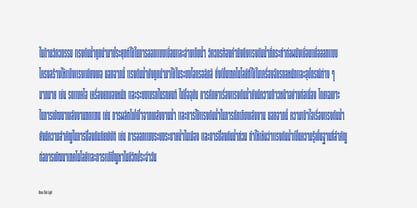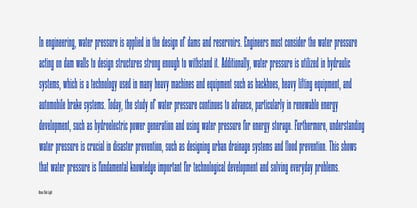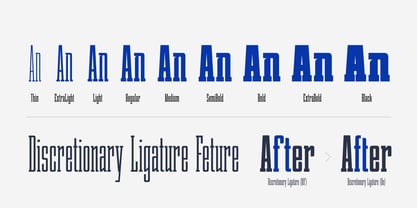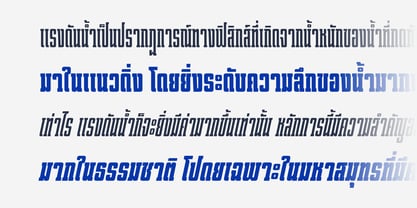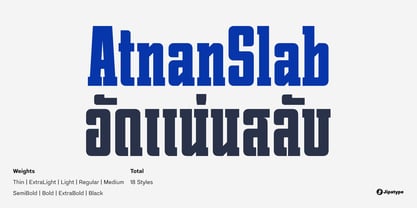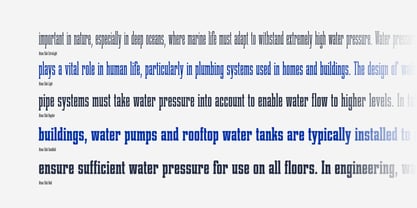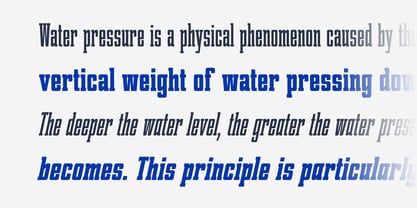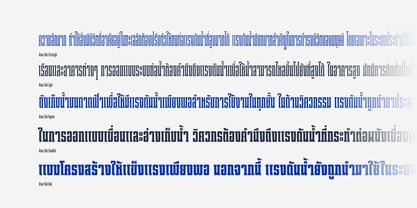
Atnan Slab
by Jipatype
The Atnan Slab Font Family was designed by Anupap Jaichumnan and published by Jipatype. Atnan Slab contains 18 styles and family package options. More about this family
Atnan Slab is a slab-serif typeface designed to be compressed. The overall letterform structure has a flat-backed square characteristic. It is suitable for promotional materials with limited space or when creating attention-grabbing headlines. The font consists of 18 styles, covering weights from the thin to the black weight, and supports both Latin 1 and Thai character sets.
Designers: Anupap Jaichumnan
Foundry: Jipatype
Jipatype is a type foundry founded and operated solely by Anupap Jaichamnarn, based in Bangkok, Thailand. Officially established in 2022, the foundry's journey began in 2019. The name "Jipatype" is derived from the Thai word “Jipatha” (จิปาถะ), meaning "miscellaneous" or "variety." This name reflects the diverse design concepts and influences that shape Jipatype’s versatile font collections.